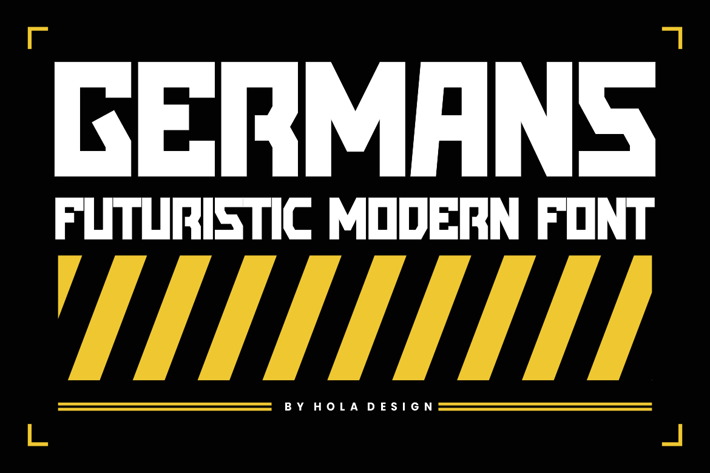
Germans - Techno & Futuristic Font
Germans - Techno & Futuristic Font is unique . Ready to use for your design like labeling, movie sceen, poster, movie title, gigs, album covers, logos, and much more.